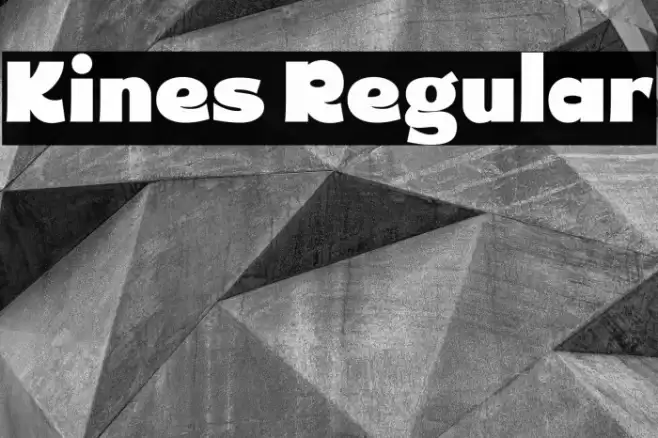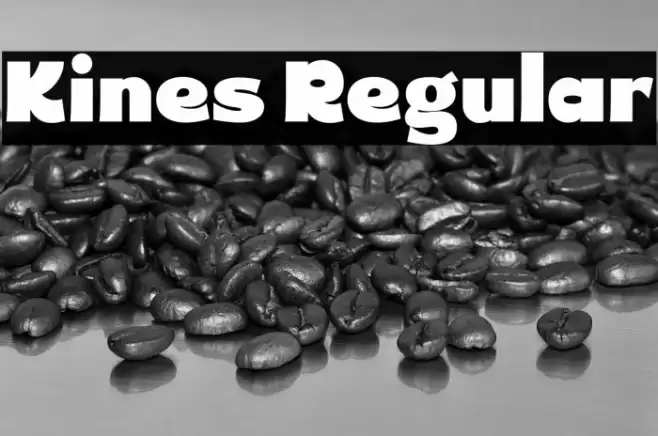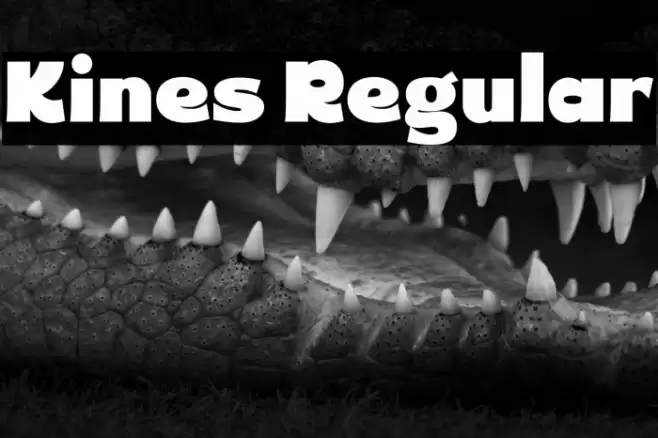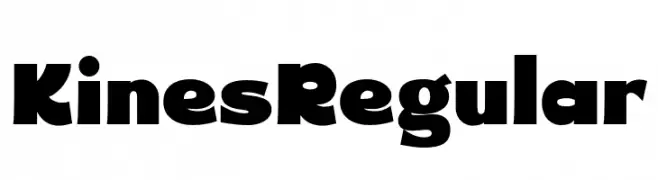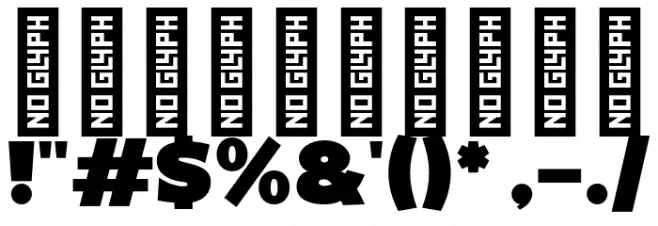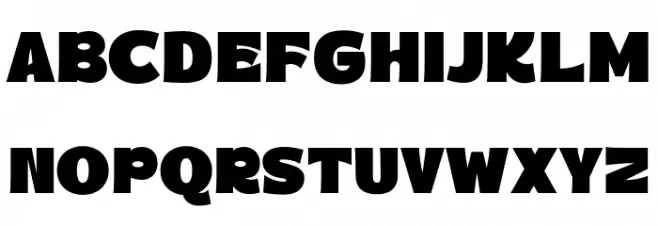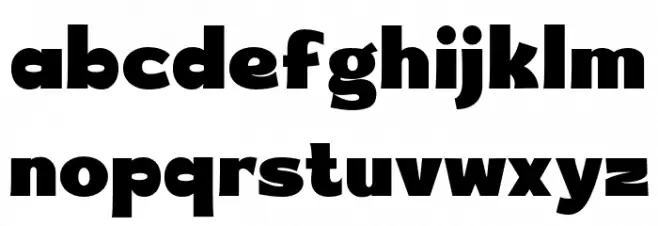
Kines Regular Font
Kines Regular Description
This font features bold, geometric letterforms with a strong presence. The uppercase characters are particularly striking, with a blocky and robust appearance that commands attention. The lowercase letters maintain a similar weight, providing a consistent and cohesive look across the typeface. The lack of serifs and the uniform stroke width give it a modern and clean aesthetic. The font's design is straightforward yet impactful, making it suitable for a variety of applications where clarity and emphasis are desired.
A bold, geometric sans-serif font with a modern and clean aesthetic from Uncategorized fonts.
- Proposed Projects: Ideal for branding, headlines, posters, and any design requiring a strong visual impact.